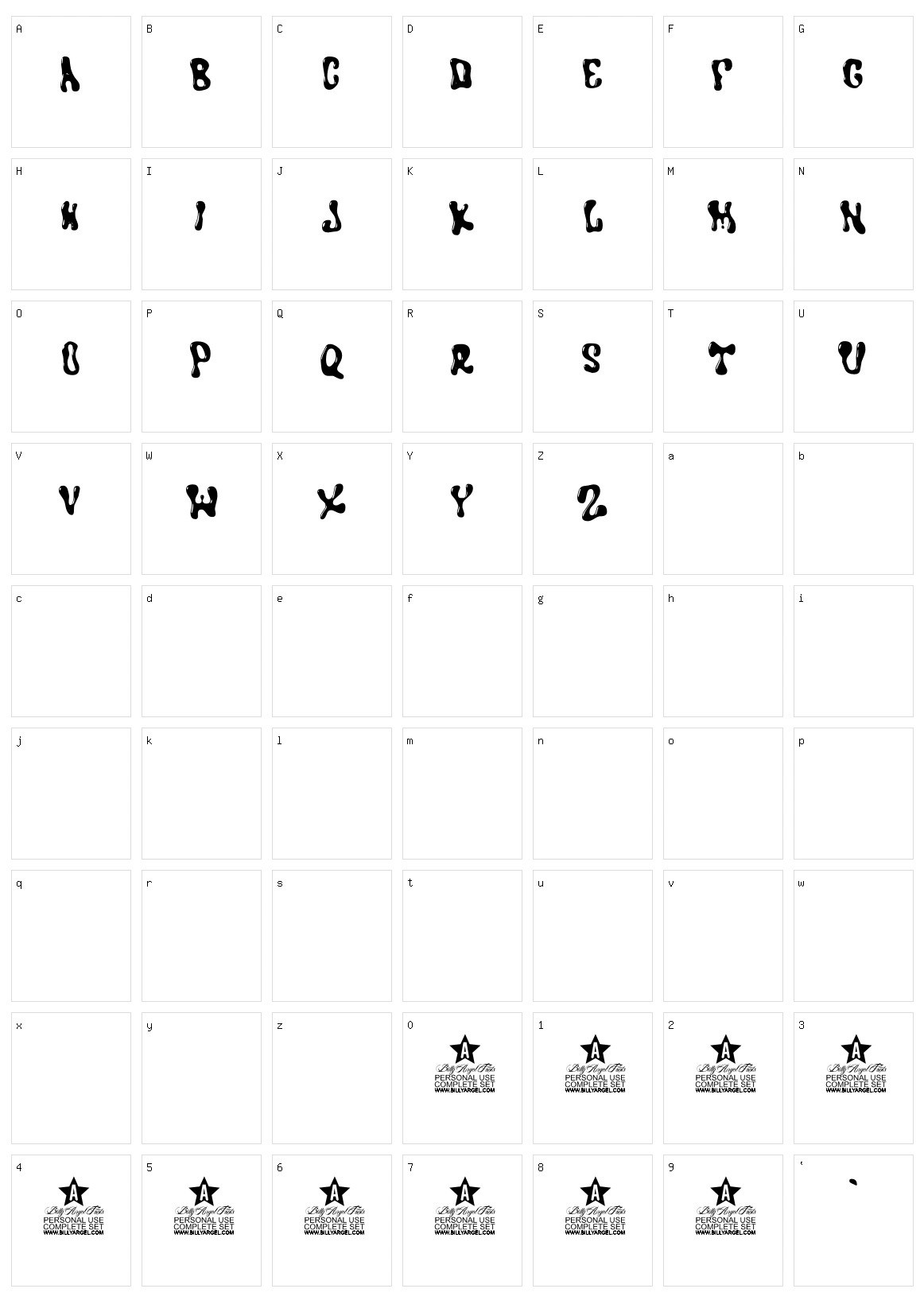
The free font Caramels is carefully designed by Billy Argel Fonts ®, showcasing a thoughtful balance of creativity and usability and falls under the Groovy font style. When you download the ZIP file, it contains only 7592.92 KB of font files, making it lightweight and quick to download. Please review the license details below to understand permitted usage and distribution rights. If license information is not available, we recommend using this font for personal projects only or contacting the author directly for commercial usage permissions.